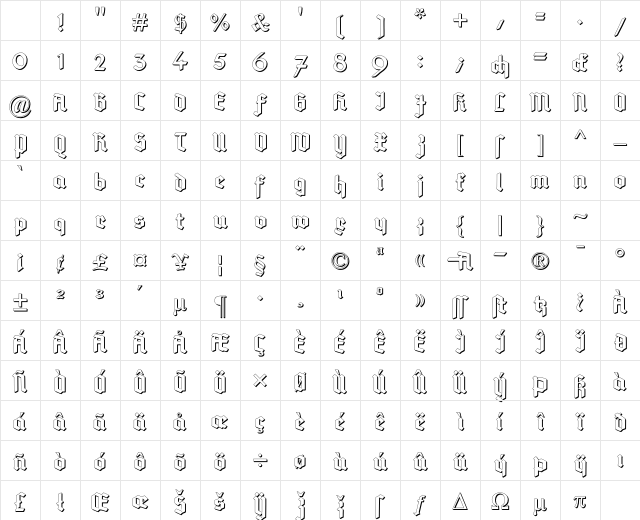
Complete Deutsch-Gotisch Shadow Regular glyph index. Displaying only characters natively supported by Deutsch-Gotisch Shadow Regular font.
Deutsch-Gotisch Shadow is built around its visual character rather than neutral utility - its distinctive forms are designed to make an impression at display sizes.
Font Pairing: Pair with a clean neutral sans-serif for body copy to let Deutsch-Gotisch Shadow's character lead without overwhelming the composition.
Pro Tip: Use Deutsch-Gotisch Shadow exclusively at display sizes - it was designed to be seen, not read at length. Let a neutral companion handle body copy.